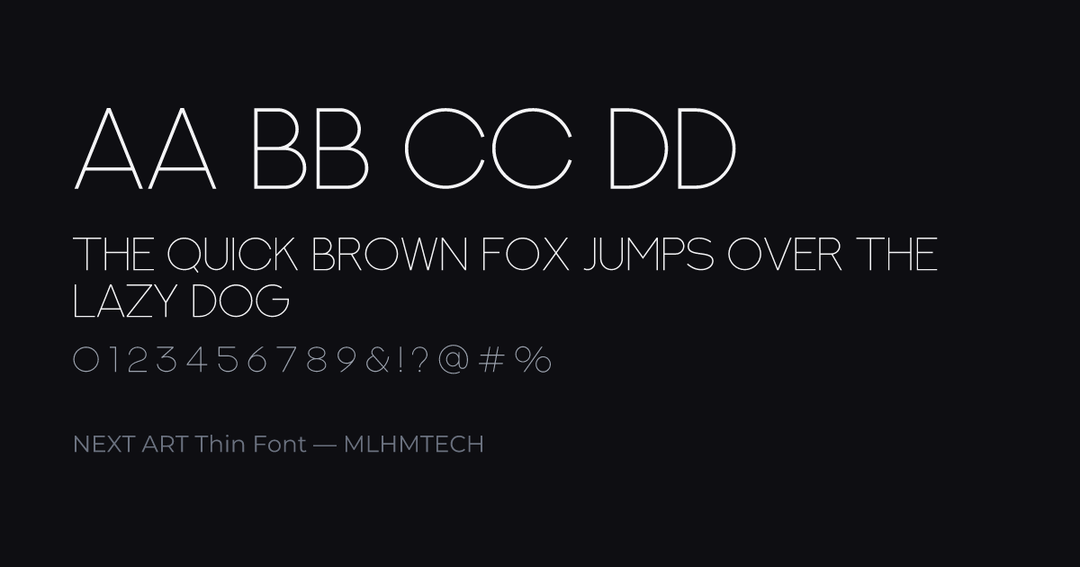
NEXT ART Thin Font
NEXT ART Thin is a refined sans-serif font with a light, airy weight. Ideal for contemporary designs, logos, and editorial layouts.
NEXT ART Thin is a modern sans-serif typeface characterized by its delicate, thin strokes. Its clean lines and minimalist aesthetic make it a versatile choice for a wide range of creative projects, from branding and logo design to web and print media.
This font exudes elegance and sophistication, perfect for adding a touch of class to your work. Whether you're designing a high-end fashion lookbook, a tech startup's website, or a stylish poster, NEXT ART Thin will bring a refined and contemporary feel.